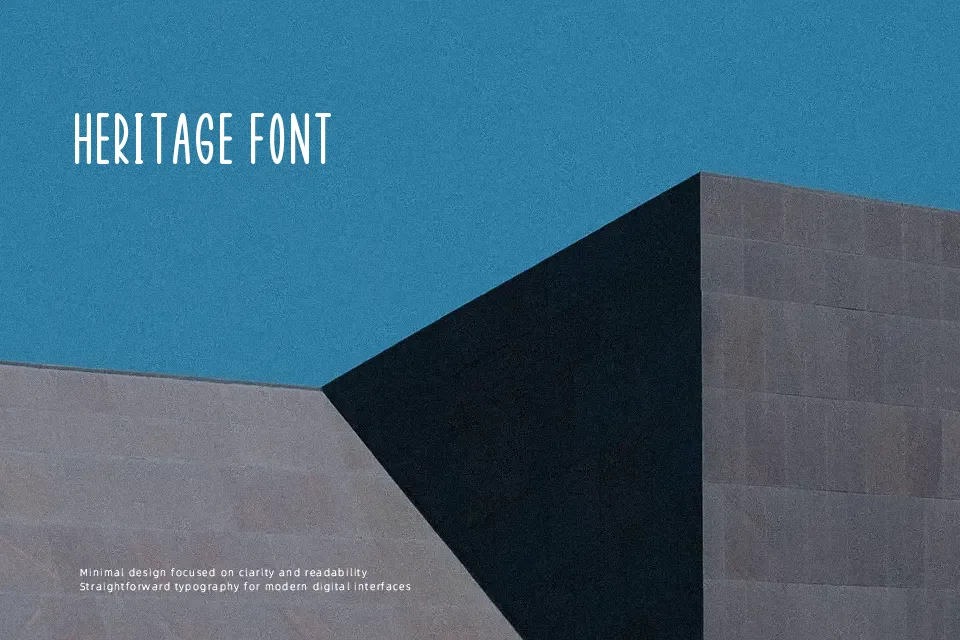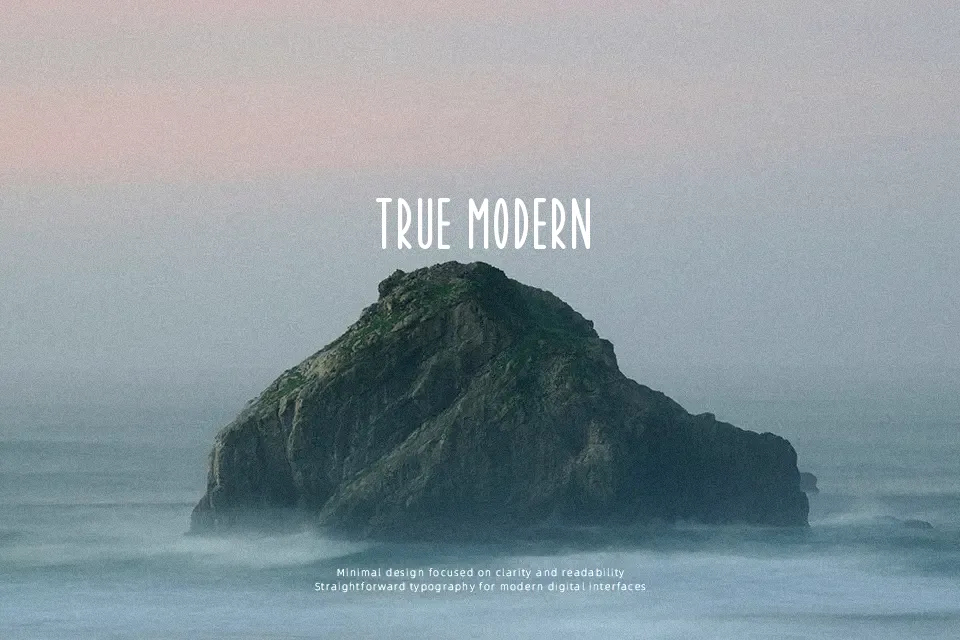
Things Font
Designed by Fillo Graphic
Things Font presents an informal uppercase architecture defined by monoline weight, generously curved terminals, and slightly irregular proportions that emphasize an approachable hand-drawn quality. The letterforms feature wide, relaxed spacing that prevents crowded text blocks when arranged in short phrases across greeting cards, party invitations, or retail product boxes. Because the stroke weight remains constant and character apertures remain wide, the design maintains clear legibility at medium and large display scales. However, dense compositions suffer from the lack of a complementary lowercase set, making the typeface poorly suited for multi-line body copy or continuous editorial reading. The generous spacing helps preserve shape distinction in festive headlines.
Best For: greeting card headlines, cosmetic packaging labels, party invitation titles
Not Ideal For: long paragraph text, mobile user interface labels, dense legal documentation
Perfect for headline, logo, and packaging, with a cute and display style.